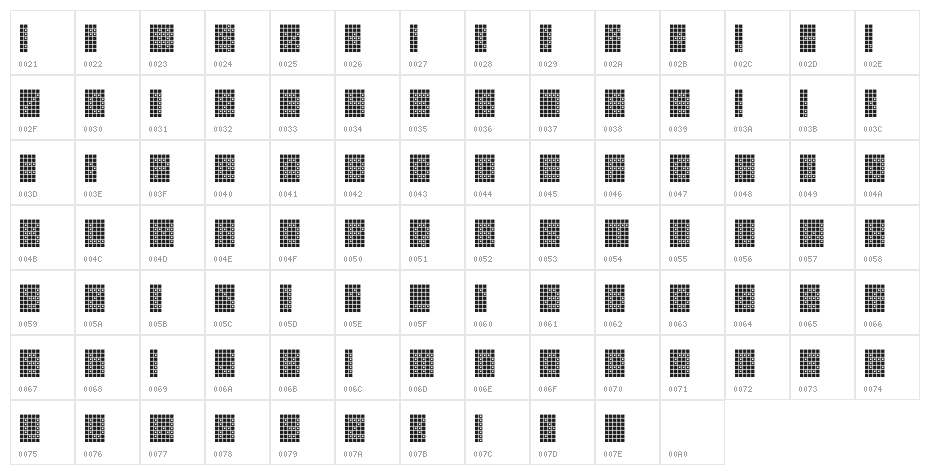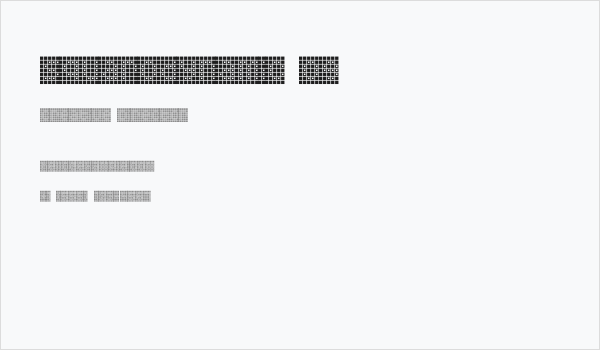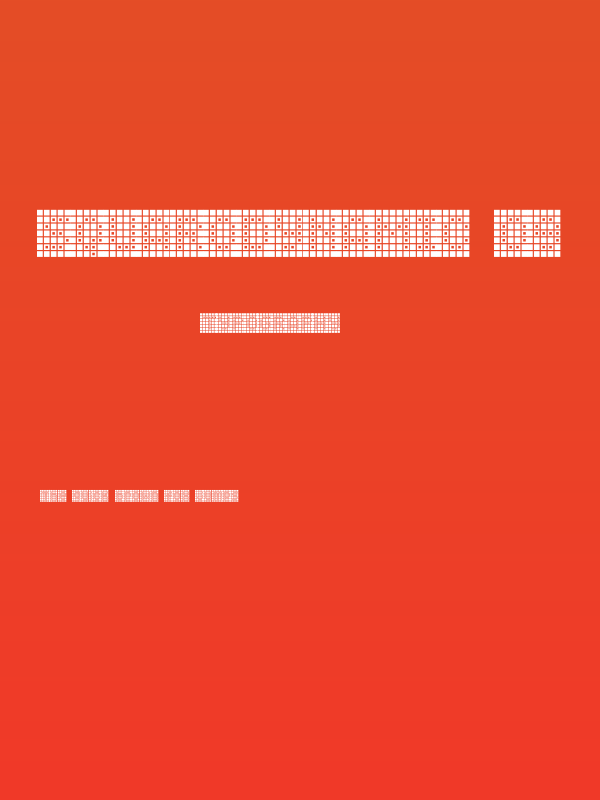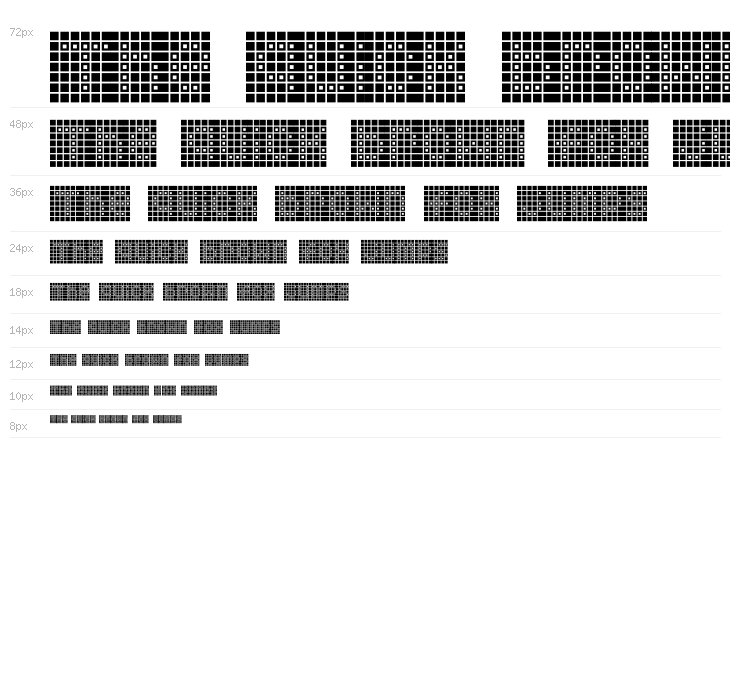
Squarodynamic 09 Font
Squarodynamic 09 Description
This font features a highly geometric and pixelated design, reminiscent of digital or retro video game aesthetics. Each character is constructed from a grid of squares, creating a blocky and modular appearance. The uniformity in the design gives it a distinct, futuristic feel, while the pixelated style evokes a sense of nostalgia for early digital displays. The characters are easily distinguishable, despite their abstract form, making it suitable for creative and modern applications.
| Use Case | Logos, Headlines, Digital Art |
| Proposed Projects | Ideal for video game design, digital art projects, tech-themed posters, and retro-style branding. |